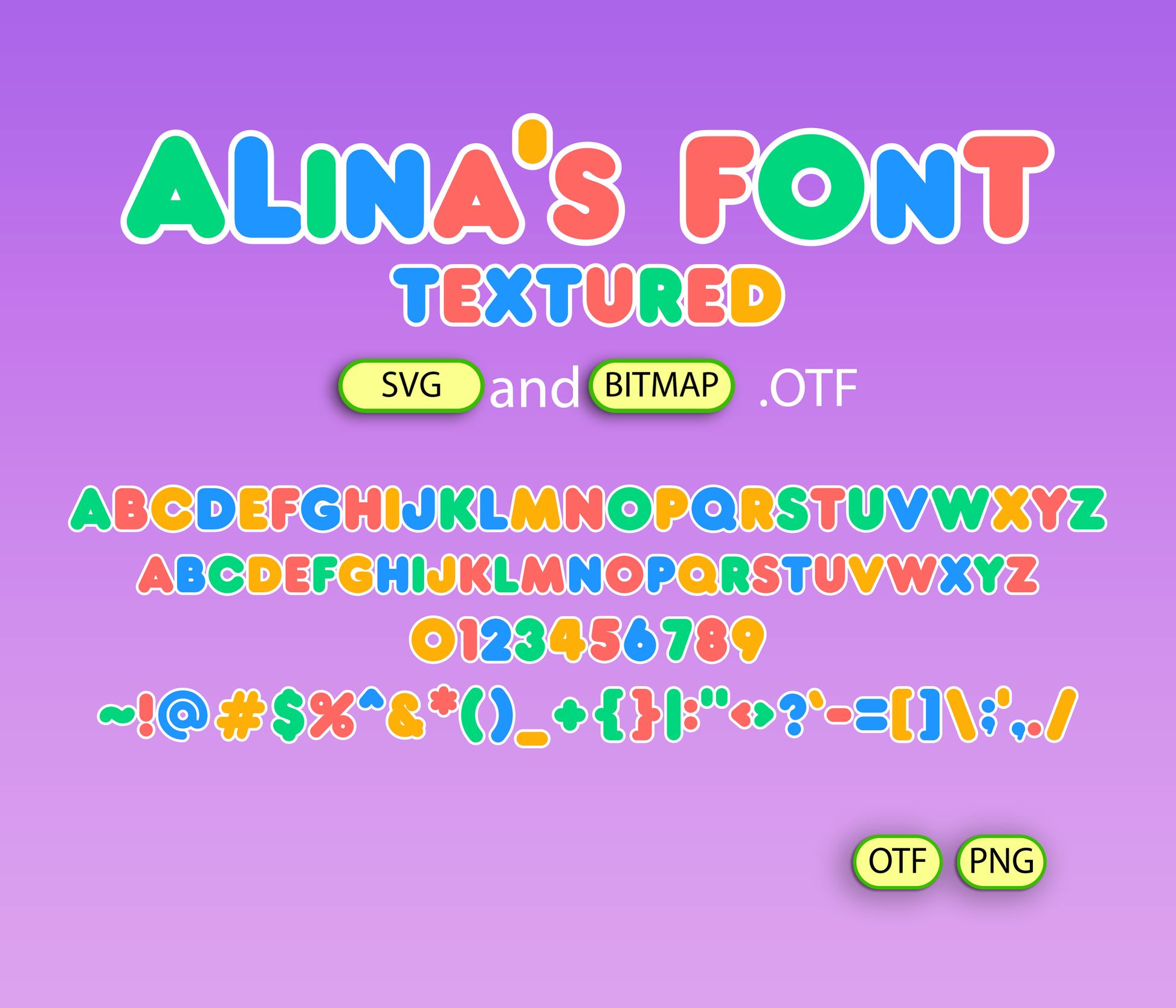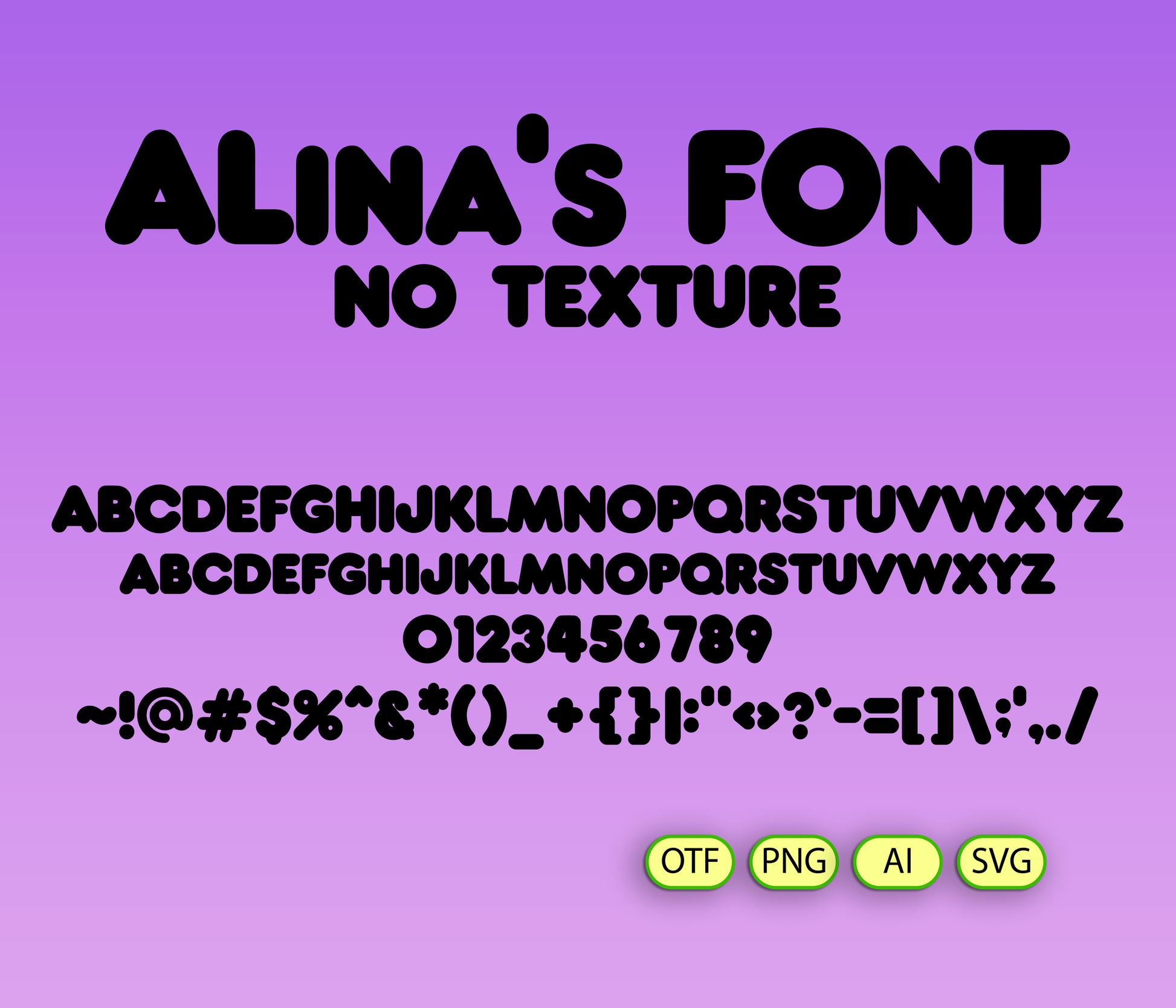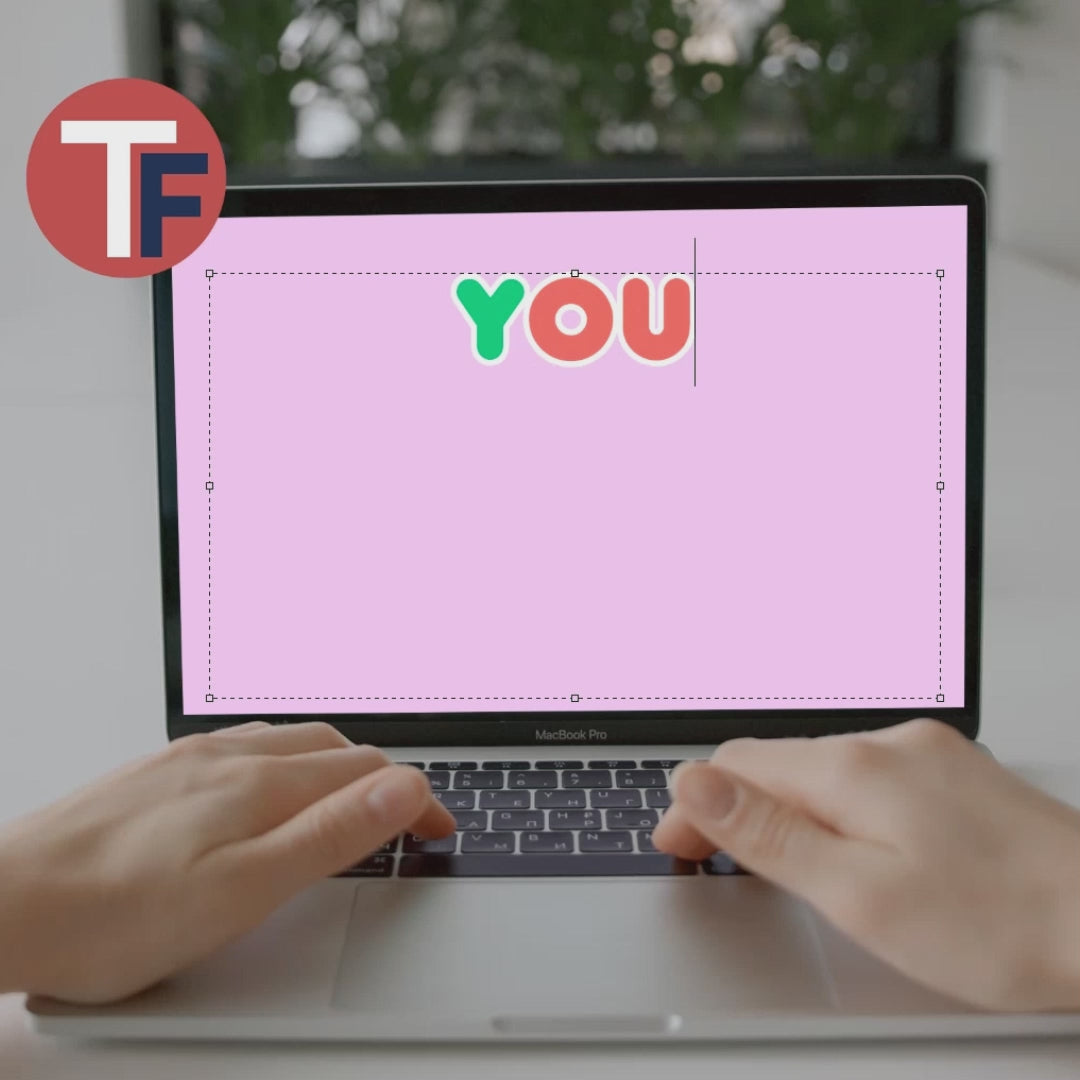
Fun Pals Font Textured
Jump into Adventure with the Fun Pals-Inspired Font
Immerse yourself in the delightful and adventurous world of Fun Pals with our specially designed font. Perfect for fans, educators, event planners, and designers looking to capture the playful and heartwarming spirit of the beloved children's series, this font brings the joyful essence of Fun Pals to your projects. Whether you're creating event invitations, educational materials, themed merchandise, or digital content, our Fun Pals font ensures your projects are brimming with the fun and camaraderie that define the show.
Our Fun Pals-inspired font features cheerful, rounded lines and vibrant characters that reflect the whimsical and engaging style of the series. This versatile font is ideal for a variety of applications:
To ensure maximum usability and flexibility, our Fun Pals-inspired font includes both textured and non-textured variants. The non-textured version is particularly beneficial, ensuring compatibility with all types of software, including Canva. This feature allows users of all skill levels to seamlessly incorporate the font into their designs, enhancing accessibility and ease of use across various digital and print platforms.
Many people seek out a Fun Pals Font generator online to mimic the look of the Fun Pals Font. Steer clear! No font generator can match the quality of this Fun Pals Font, which comes in two versatile versions: a textured colored Fun Pals font and a simple Fun Pals font. This is particularly beneficial if you plan to use it with a cutting machine.